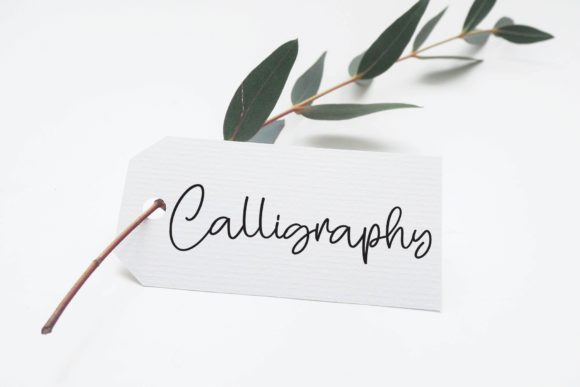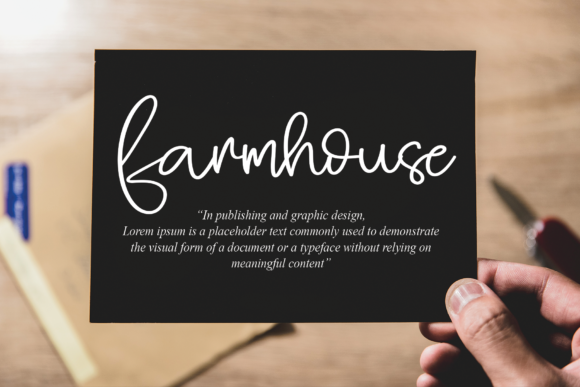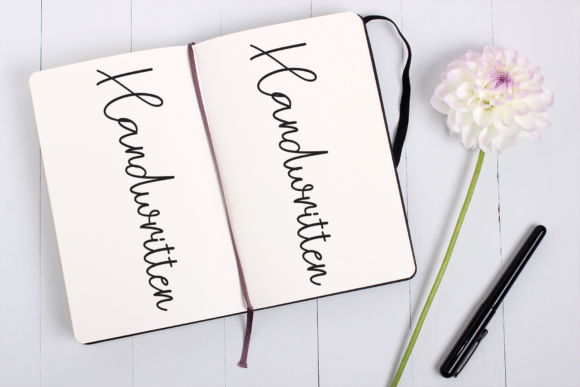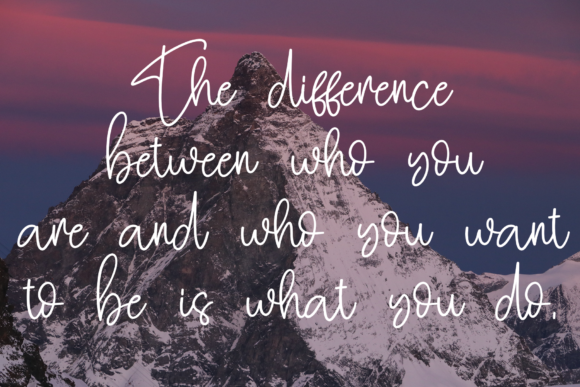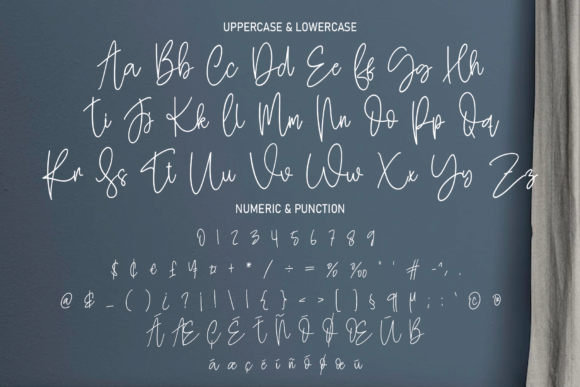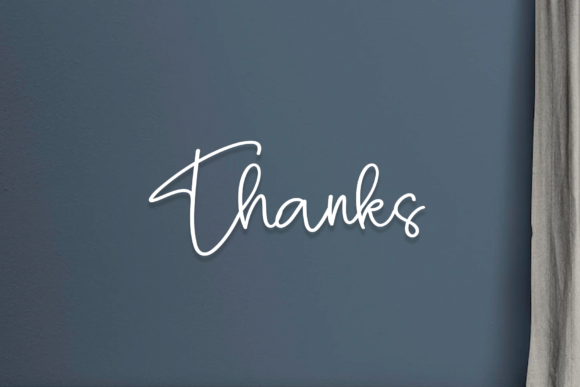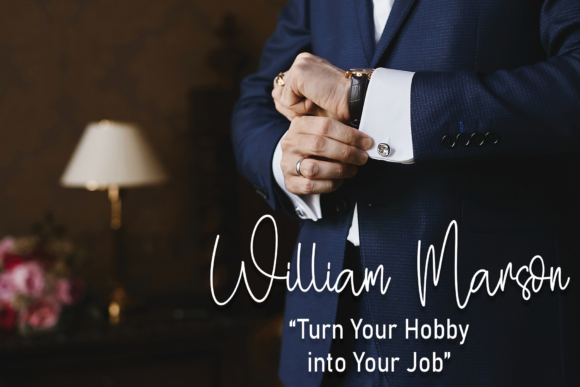
Silhouette Font
About Silhouette Font
The letters of this font are impeccably suited for a diverse array of creative applications, making it an ideal choice for a wide range of design projects. Whether you’re working on wall displays, crafting wedding invitations, designing social media post logos, creating advertisements, conceptualizing product packaging and designs, developing labels, adding a personal touch to photography watermarks, or producing invitations and stationery, this font is crafted to meet the demands of any project that craves a handwritten aesthetic.
Envision the font’s distinctive letters elevating wall displays, infusing them with a personalized and artisanal touch that captivates viewers. Picture it gracing wedding invitations, contributing to an atmosphere of elegance and individuality. Imagine the font seamlessly blending into social media post logos, establishing a recognizable and unique brand identity.
See it enhancing the visual impact of advertisements, product packaging, and product designs, creating a brand image that stands out. Visualize the font delicately placed on labels, adding a handwritten charm to various products. Envision it leaving a lasting impression as a watermark on photographs, ensuring they bear the signature of an artistic touch. Picture the font setting the tone for invitations and stationery, offering a warm and personal connection for the recipients.
In essence, this font is a versatile and indispensable tool for projects requiring a handwritten taste. Its adaptability ensures a seamless integration into diverse design contexts, enriching the overall aesthetic and imparting an authentic feel. Choose this font to bring a handwritten charm to your creative endeavors across a spectrum of projects.